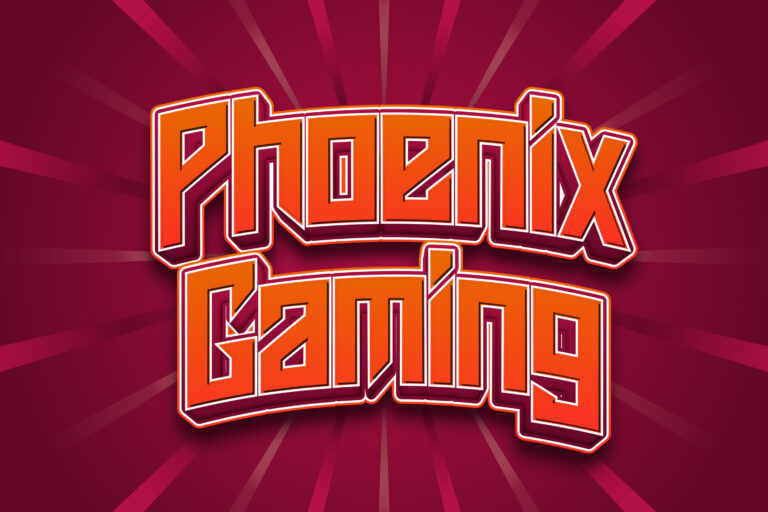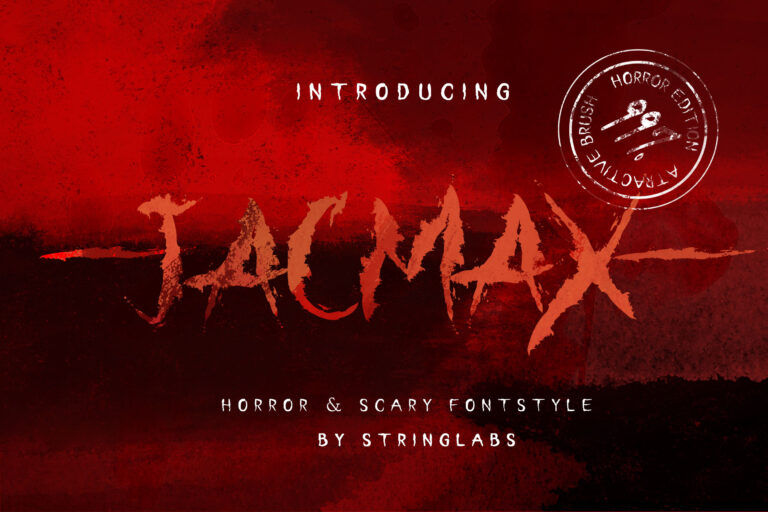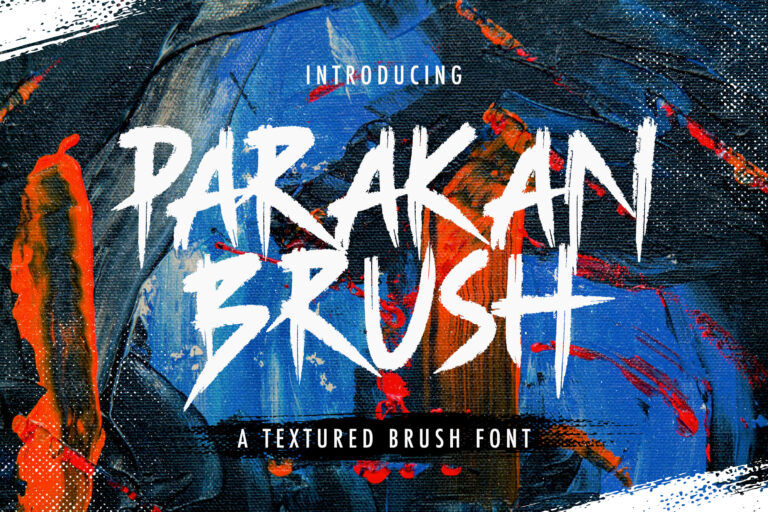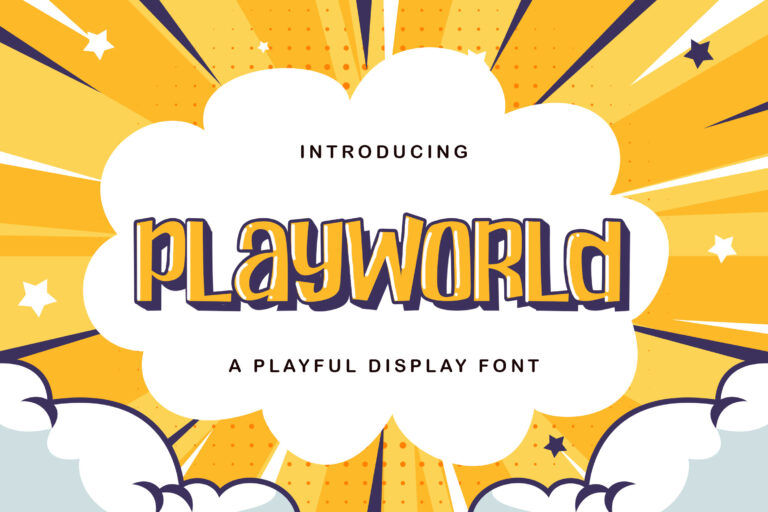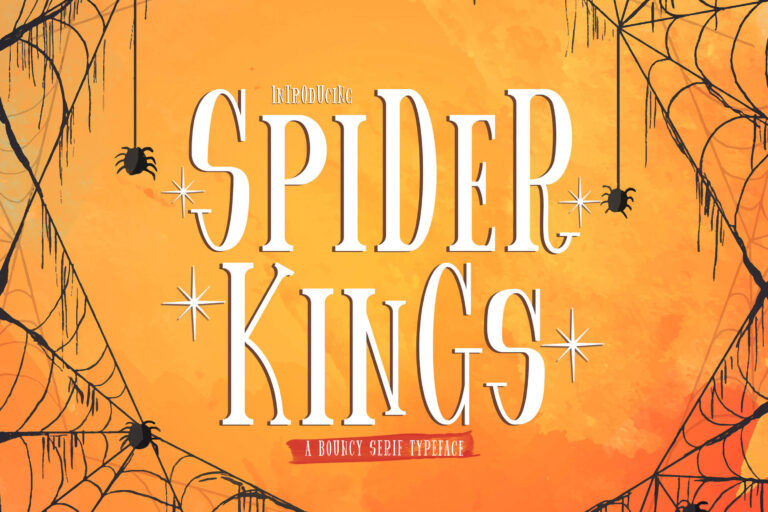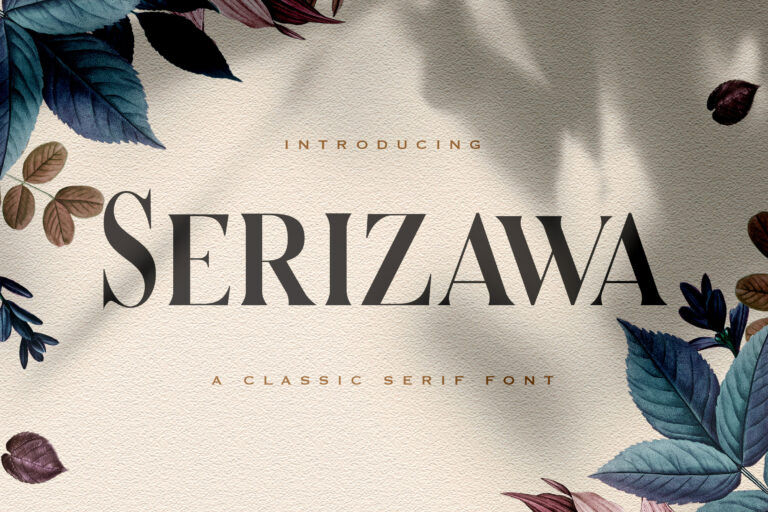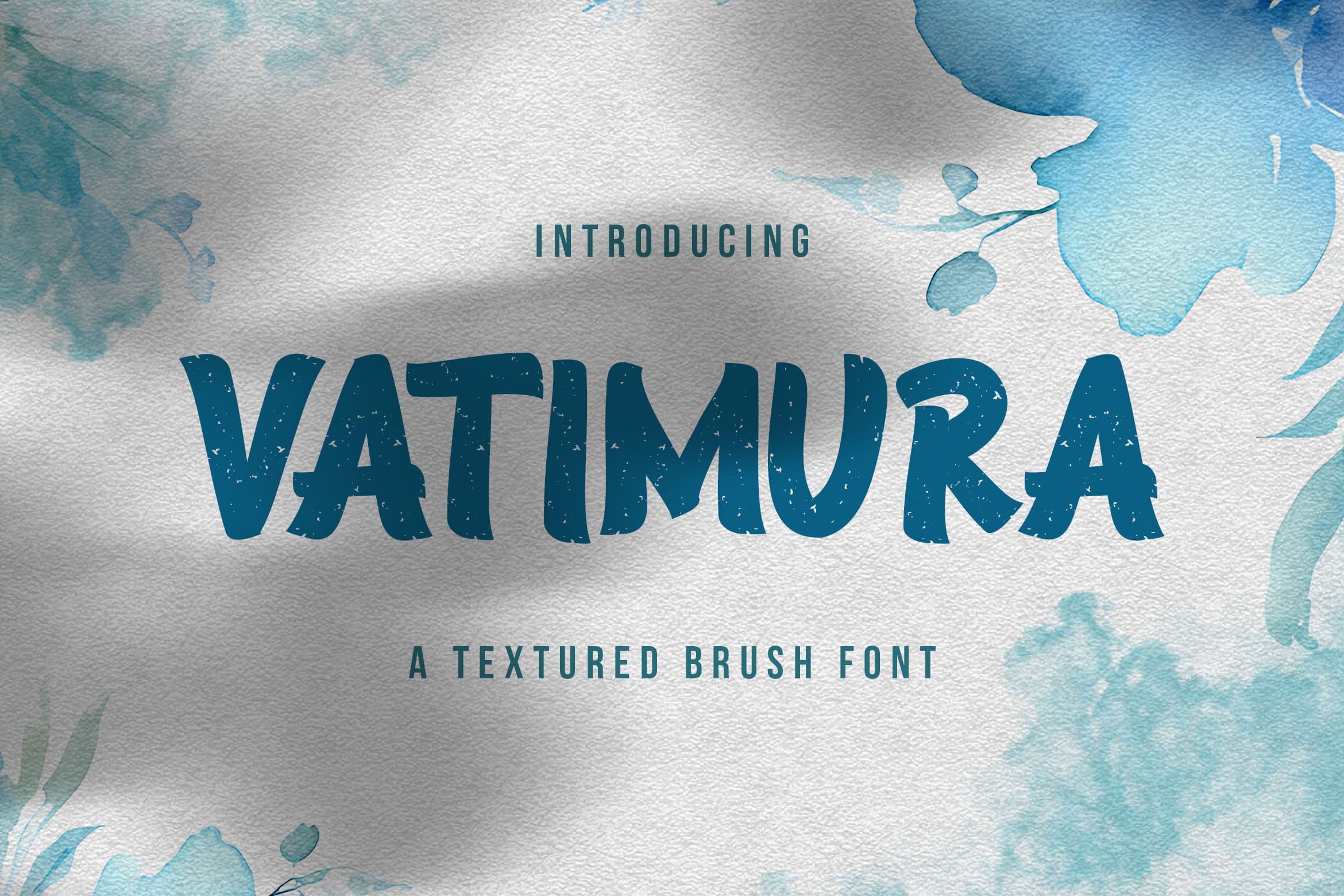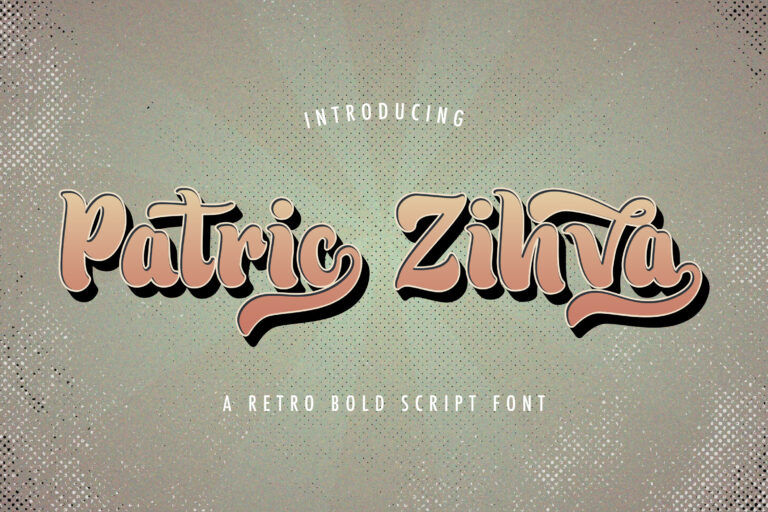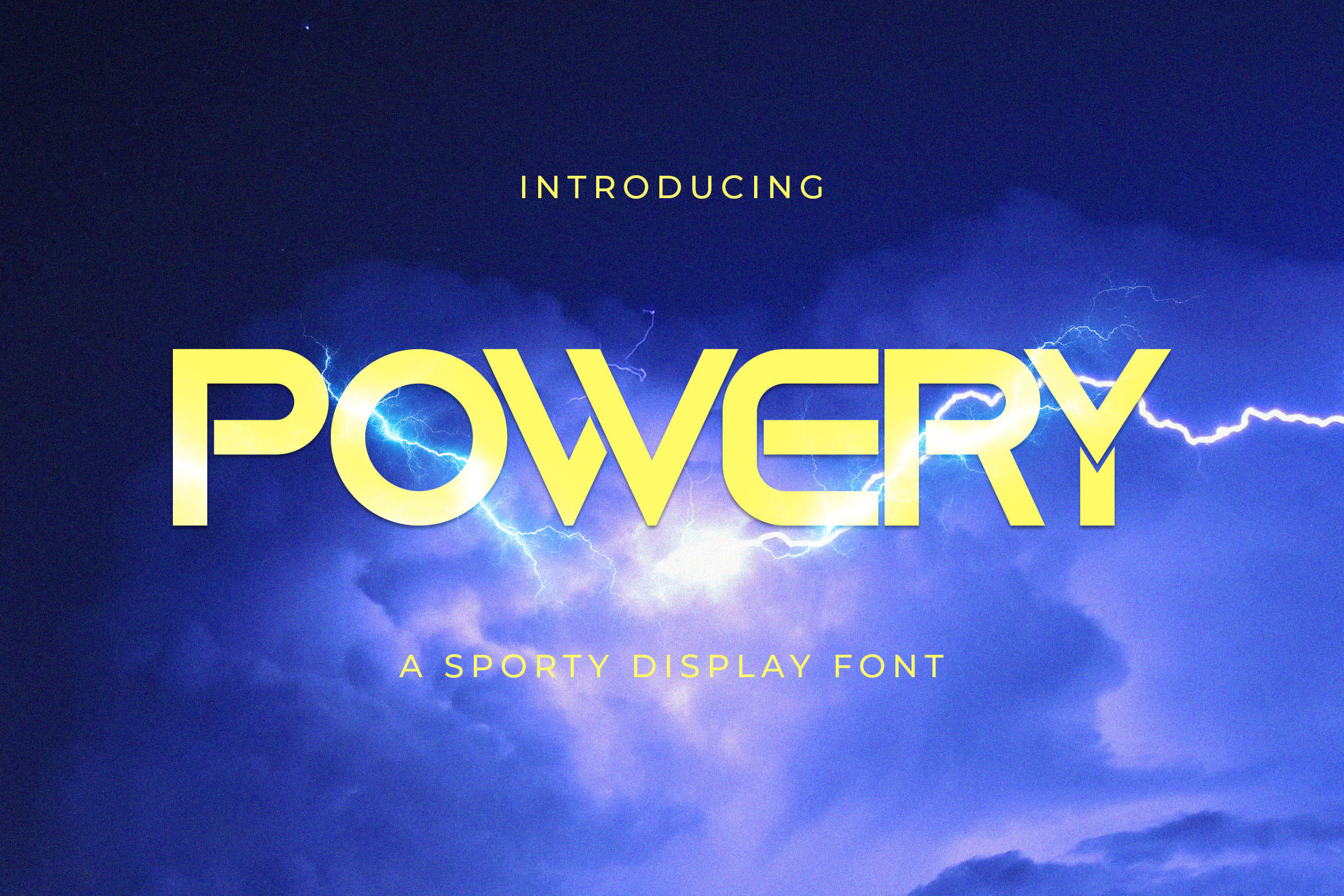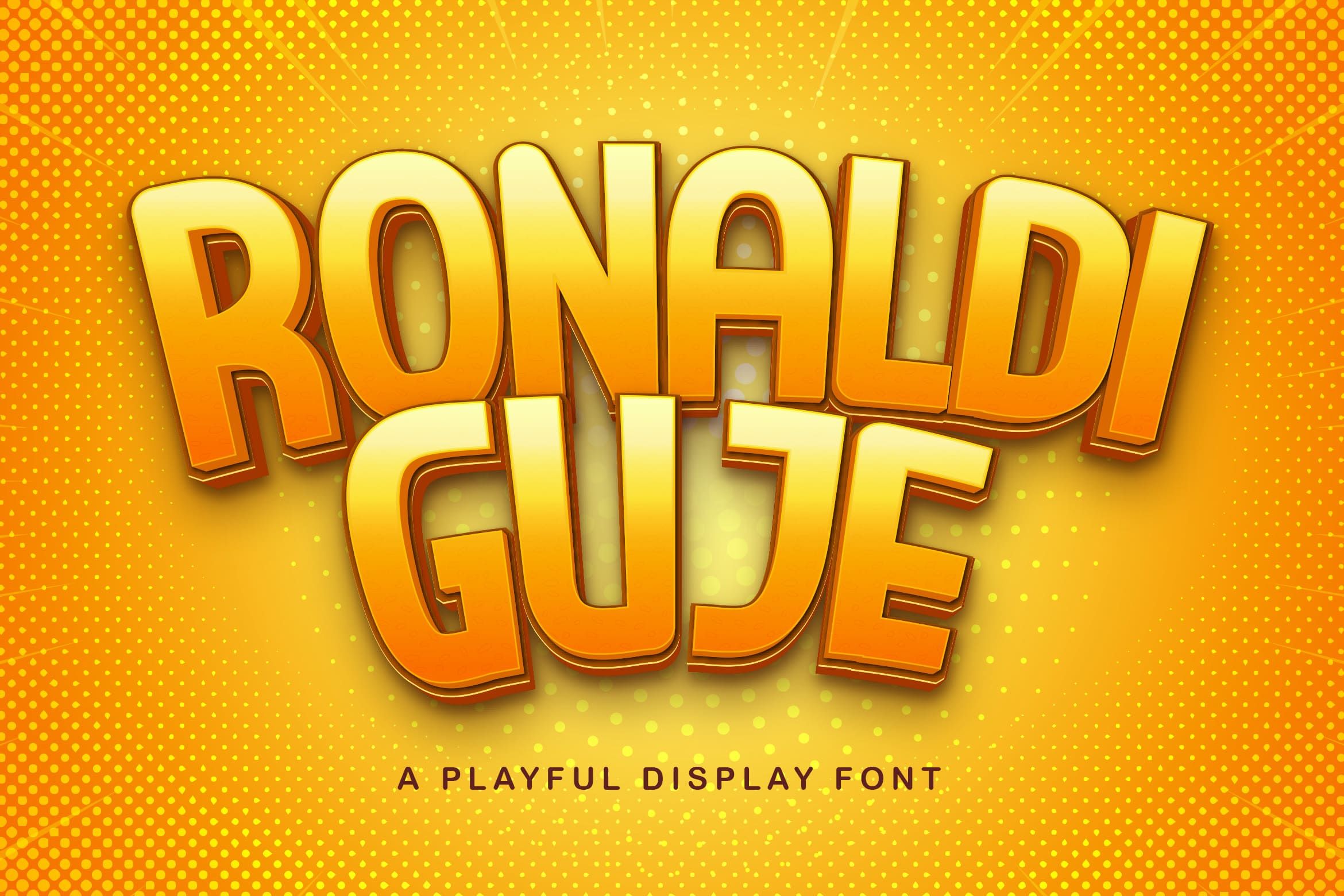
20 Best Fonts for Twitch to Upgrade Your Channel Aesthetic
Twitch has become one of the most popular livestreaming platforms for gamers, creators, and entertainers. As competition grows, using the right fonts for Twitch branding can help your stream stand out through overlays, banners, panels, and other visual assets.
In fact, Twitch reached an average of 6.9 million active channels per month in 2025, making strong personal branding more important than ever. If you are looking for the best fonts to improve your streaming visuals, here are some great options to explore.
Key Takeaways:
• Competitive gamers usually benefit from bold fonts with thick strokes and sharp edges to create a stronger esports identity.
• Casual streamers can choose fonts based on their niche, such as fantasy, cozy, horror, or retro gaming themes.
• IRL streamers often need more personal and approachable fonts to build stronger connections with viewers.
Best Fonts for E-Sports and Competitive Gamers
For competitive game streamers, choosing the right fonts for Twitch can help strengthen your identity and make your channel look more professional. Bold and futuristic styles work best for FPS, MOBA, fighting, and esports content.
1. Phoenix Gaming
Bold and blocky, Phoenix Gaming gives your stream a strong esports identity. Its sturdy style works well for team branding, overlays, and gaming banners.
2. Powery
Powery features a geometric sans-serif style with a modern feel. It is a great choice for streamers who mix gaming content with healthy lifestyle or tech themes.
3. Armygedon
Armygedon comes with thick, sharp-edged letters that create a powerful competitive look. This font helps your Twitch branding feel intense and commanding.
4. Nicolas
If you want fonts that feel professional without looking too serious, Nicolas is a solid option. Its clean style balances competitive gaming energy with a more laid-back personality.
5. Fun Games
Fun Games uses sharp, futuristic shapes that fit gaming and tech-focused streams. It can make your overlays and channel graphics look more energetic and modern.
6. Esportiva
Esportiva combines sporty and modern details that suit esports streamers. It works especially well for Twitch panels, banners, and team-based branding.
7. Super Punch
Super Punch proves that simple heavyweight fonts can still look powerful. Its bold letterforms make stream titles and overlays easier to notice during livestreams.
Best Fonts for Casual Gamers
Casual game streamers usually need fonts for Twitch that feel friendly, thematic, and expressive. Depending on your niche, you can choose fantasy, horror, cozy, or playful styles to match your streaming atmosphere.
8. Aquero
Aquero brings a medieval fantasy style that fits RPG, adventure, and open-world games. Its decorative look can make your stream feel more immersive.
9. Rose Knight
Rose Knight features elegant thorn-like details that strengthen fantasy-themed branding. It is a great choice if you want your Twitch visuals to look more artistic.
10. Jacmax
For horror-themed fonts, Jacmax is a strong choice. Its distorted strokes create an eerie atmosphere that works well for horror games and spooky stream overlays.
11. Parakan Brush
Parakan Brush has rough brush-style strokes that suit horror and indie games. Compared to more extreme horror fonts, this one feels more flexible for different stream themes.
12. Playworld
Playworld has a playful, cozy appearance that matches relaxing games like Stardew Valley or Animal Crossing. It helps your channel feel warm and welcoming.
13. Spider King
Spider King offers a cheerful yet versatile style for streamers who enjoy many different genres. Its flexible design helps keep your Twitch branding consistent across various games.
Best Fonts for IRL Streamers
IRL streamers also need the right fonts for Twitch to shape their personality and streaming atmosphere. Whether you create podcasts, “Just Chatting” sessions, or daily livestreams, the right typography can make your channel feel more personal and professional.
14. Mediqa
Mediqa features a delicate serif style that feels warm and personal. It is a great choice for streamers who enjoy connecting closely with their audience.
15. Serizawa
Serizawa has an elegant and upscale appearance that makes it a reliable streamer font for podcasts, interviews, and professional livestreams. Its stylish design helps build authority and confidence.